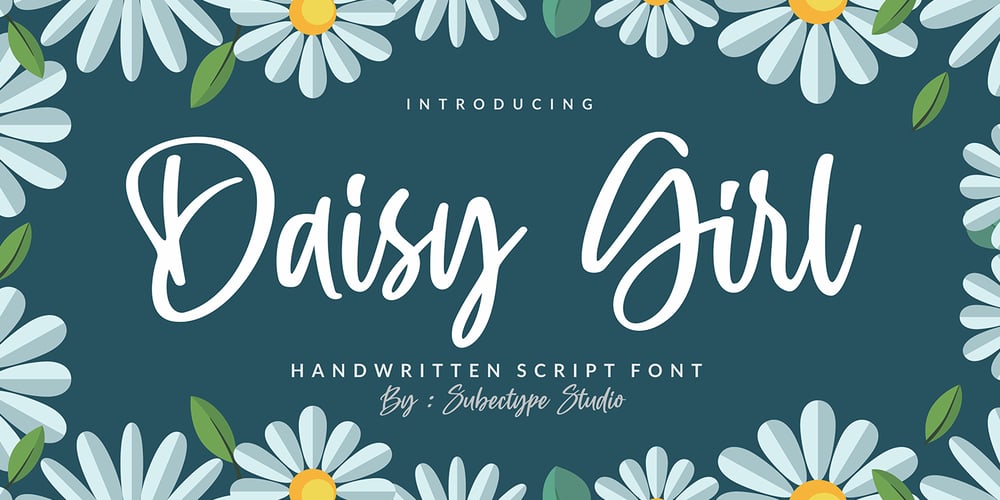
Daisy Girl Font Family was designed by Rangga Subekti and published by Subectype. Daisy Girl contains 1 styles and family package options. Daisy Girl is a flowing handwritten font, described by an elegant touch, perfect for your favorite projects. Fall in love with its incredibly distinct and timeless style and use it to create spectacular designs!Enjoy the font, feel free to comment or feedback, send me PM or email.Thank you!